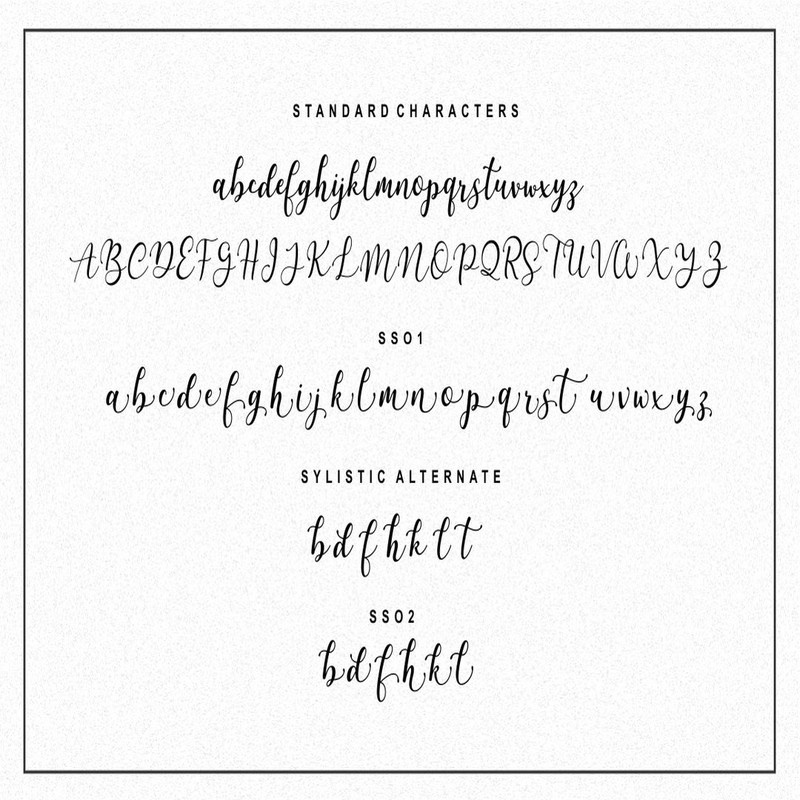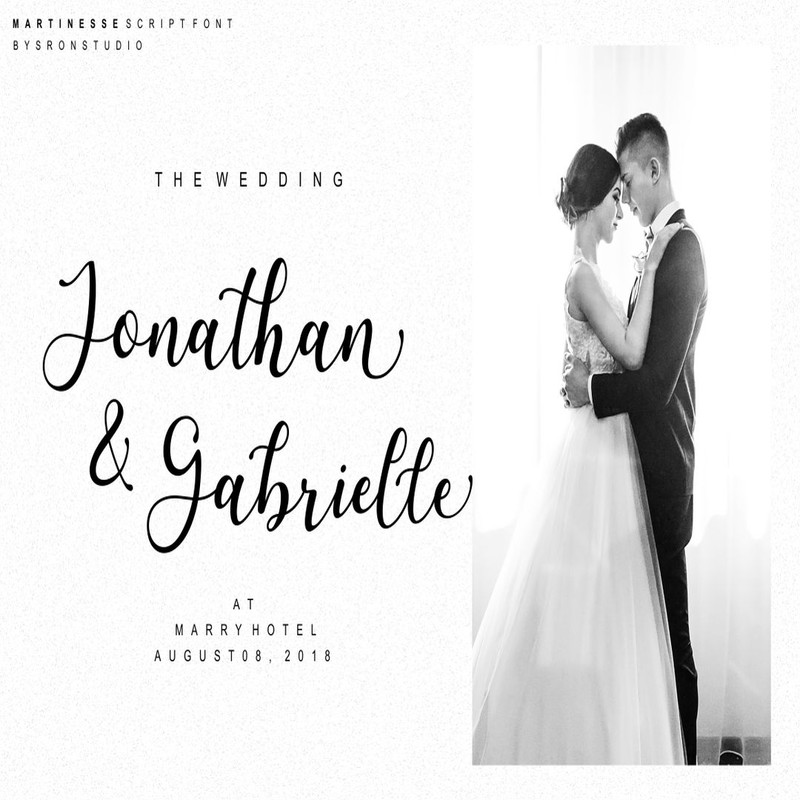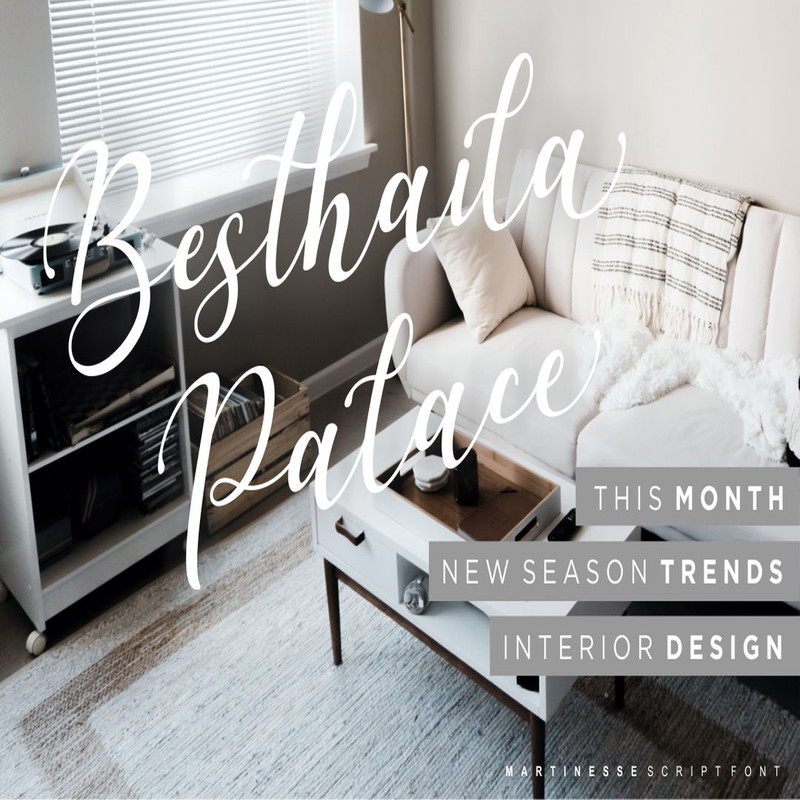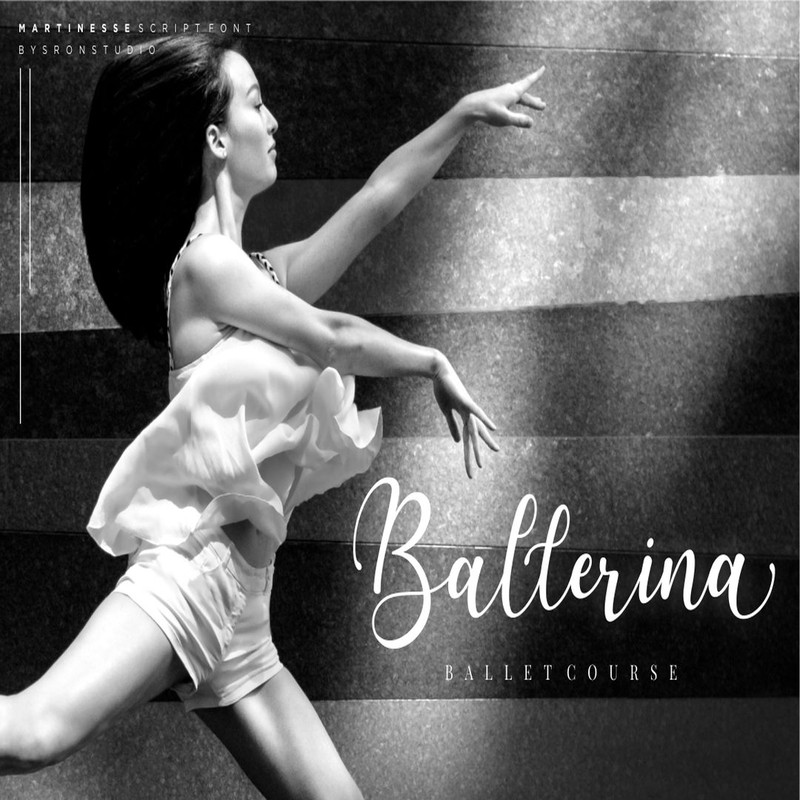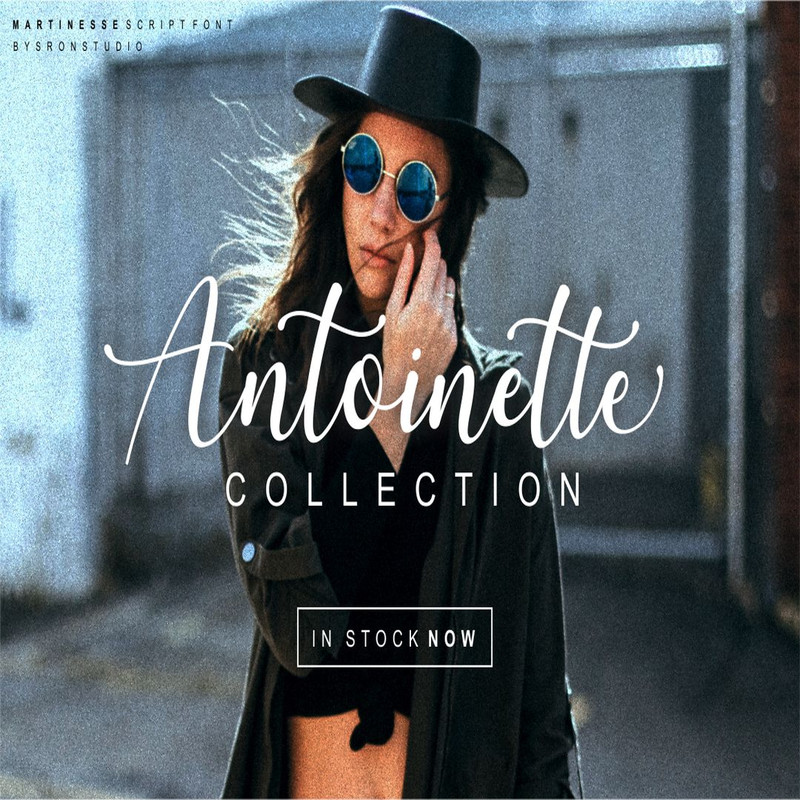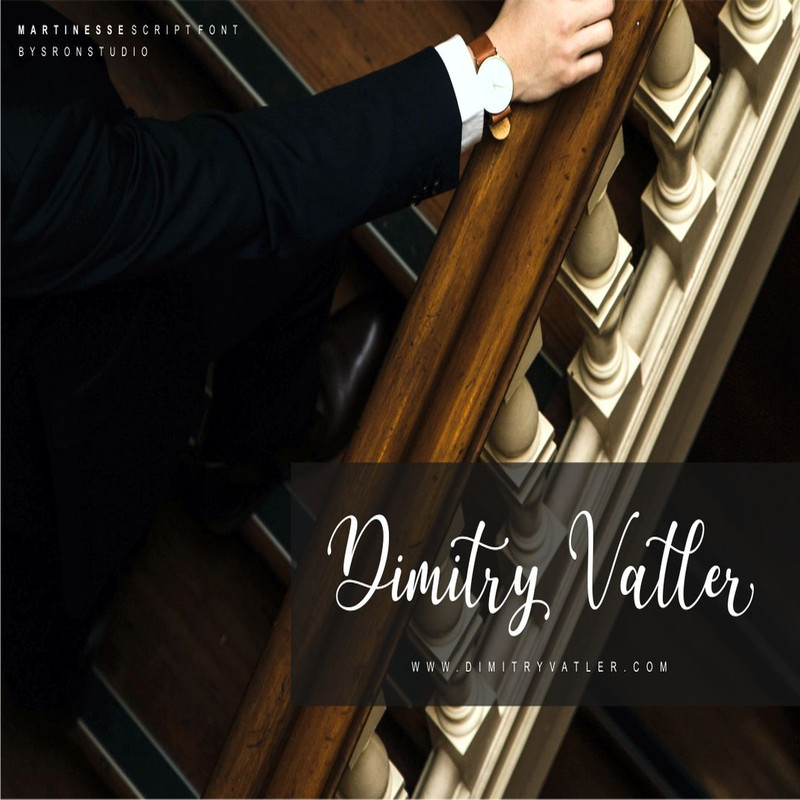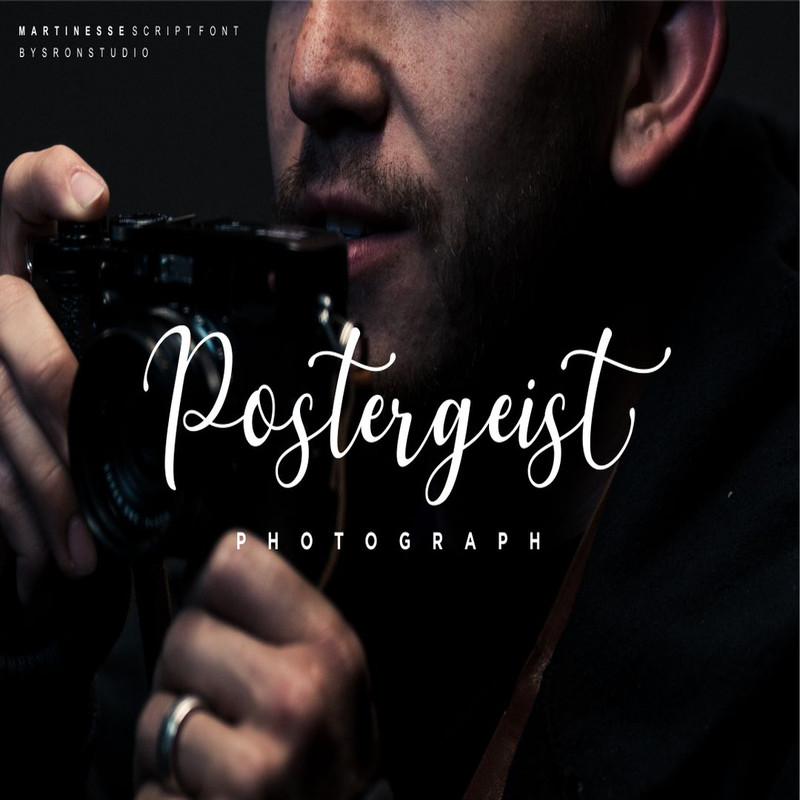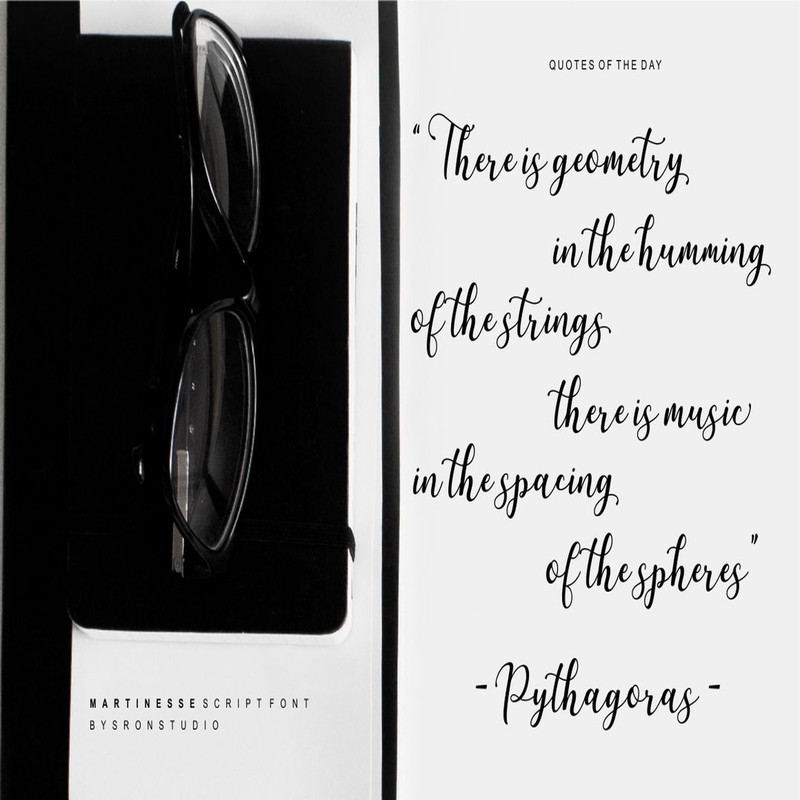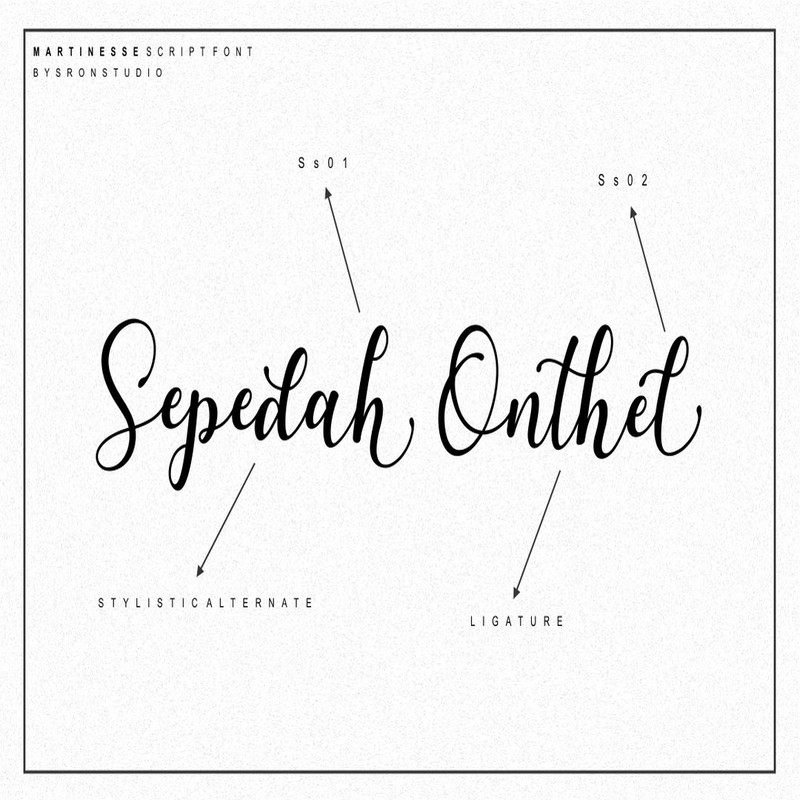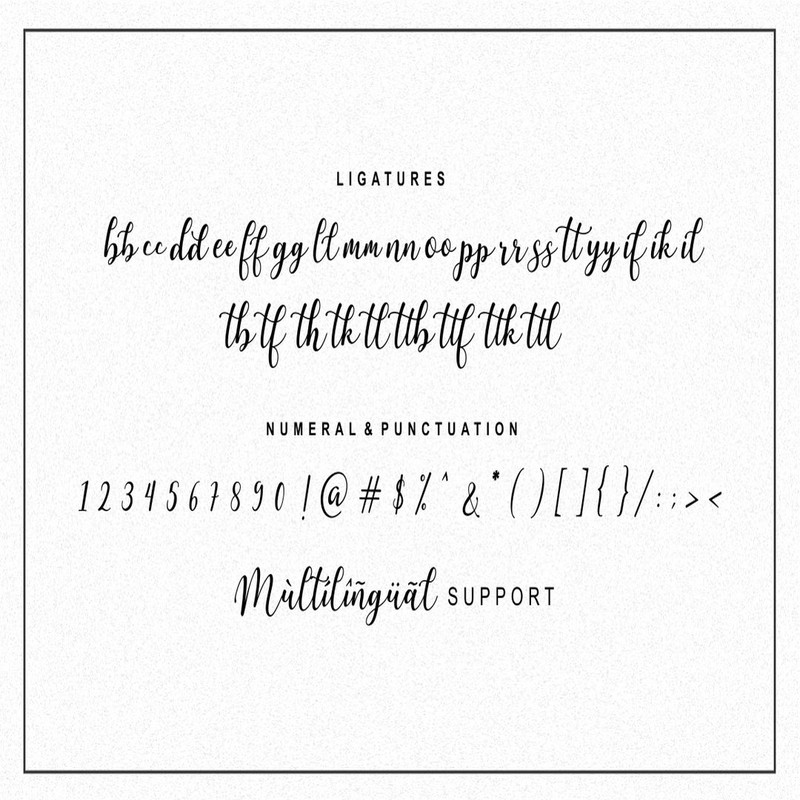
Martinesse – Beautiful Script Font Trending Fonts - Digital Font
Introducing Martinesse – a new modern & fresh script font with elegant alternates make this font perfect for for any design needs, modern invitation design, branding, stationery design, blog design, modern advertising design, invitation, Art Quote, Home decor, Book/Cover Title, Invitation, special events, birthday, custom mug, pillow, t-shirts, any brush lettering needs and more.
Martinesse – Beautiful Script Font Trending Fonts - Digital Font
Introducing Martinesse – a new modern & fresh script font with elegant alternates make this font perfect for for any design needs, modern invitation design, branding, stationery design, blog design, modern advertising design, invitation, Art Quote, Home decor, Book/Cover Title, Invitation, special events, birthday, custom mug, pillow, t-shirts, any brush lettering needs and more.